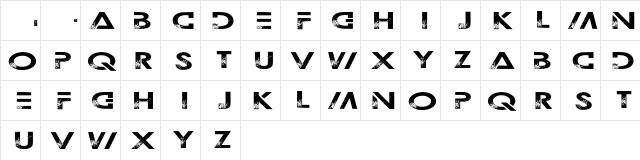
Outerspace Militia Regular
| Foundry | Font Monger |
| Designer | Chris Vile |
Design Context for Outerspace Militia Typeface
Outerspace Militia is a composed and adaptable typeface that performs quietly and consistently across a wide range of design contexts.